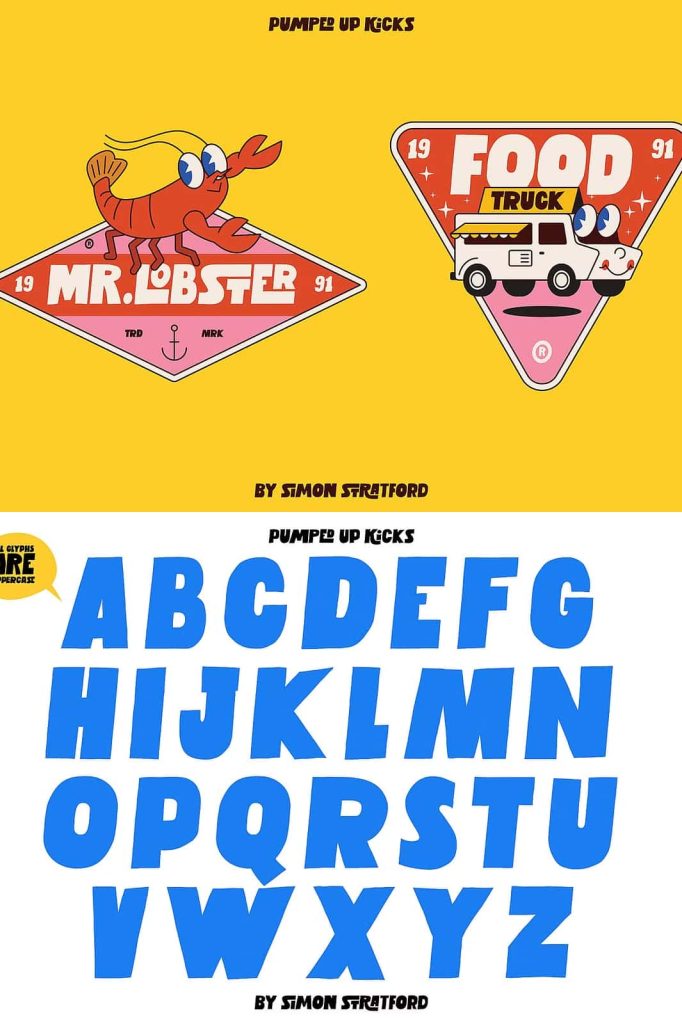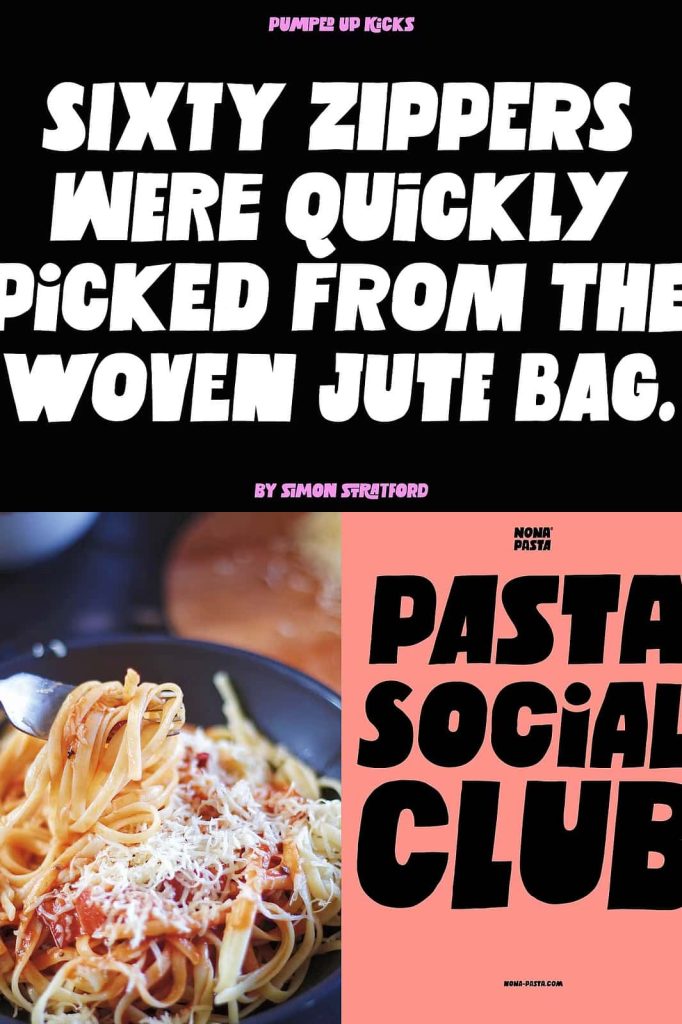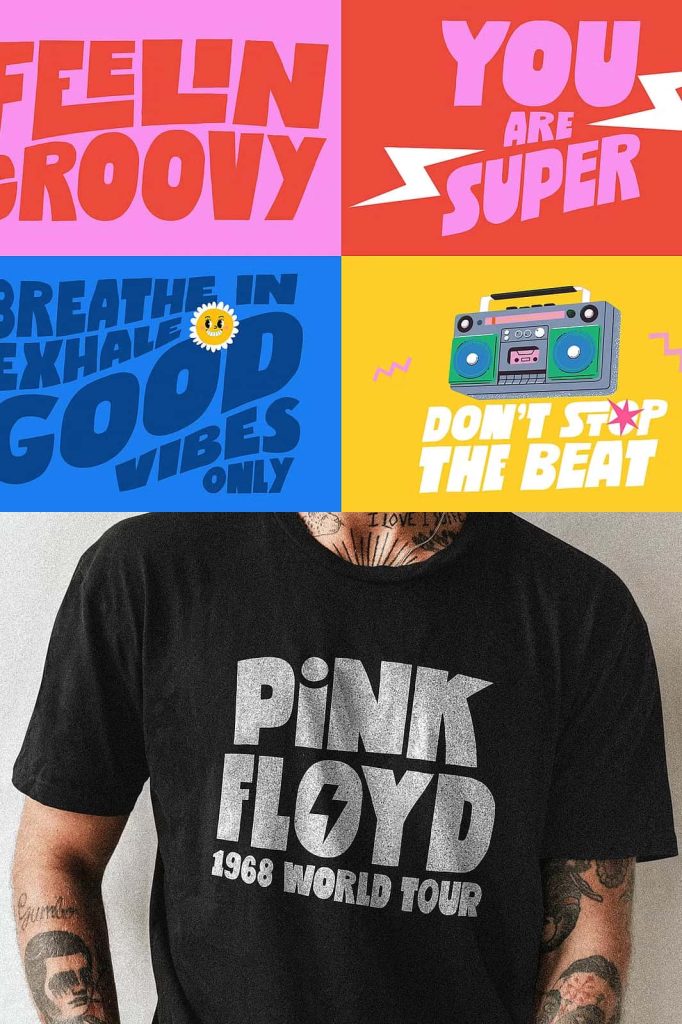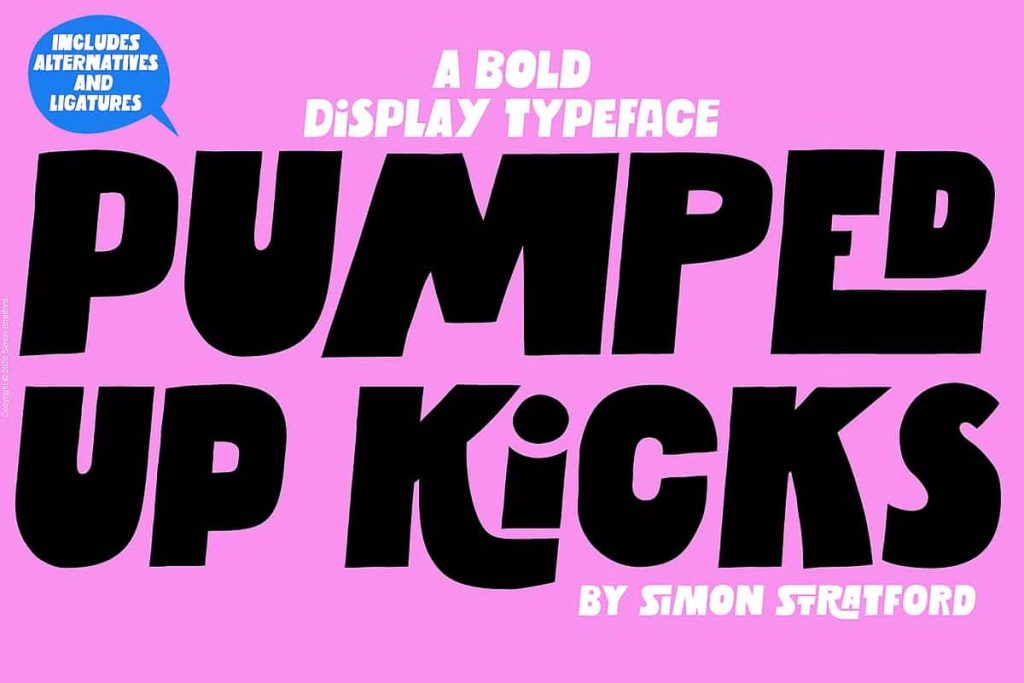
Pumped up kicks display font
Pumped Up Kicks Display Font: Bold Energy and Playful Expression
Pumped Up Kicks is a modern sans-serif display font designed to inject energy, fun, and confidence into any creative project. Built with bold forms and lively proportions, this typeface thrives in designs that demand immediate attention. It does not sit quietly in a layout; instead, it drives the visual narrative forward with a playful and expressive attitude.
This font embraces creativity without losing structure. Its clean sans-serif foundation ensures clarity, while its bold personality brings excitement and movement to the page. Pumped Up Kicks delivers a balance of visual fun and functional design, making it a powerful tool for designers who want typography to speak loudly and clearly.
A Modern Typeface Packed with Energy
Pumped Up Kicks captures the feeling of motion and enthusiasm through its letterforms. Each character feels dynamic and confident, creating a rhythm that keeps the viewer engaged. The font’s modern construction ensures that it feels current and relevant, while its playful edge prevents it from appearing generic.
This sense of energy makes Pumped Up Kicks especially effective for youth-oriented brands, creative campaigns, and bold visual storytelling. It communicates excitement at first glance and invites audiences to interact with the design.
Bold Letterforms with a Playful Twist
The bold weight of Pumped Up Kicks gives it a strong presence, allowing text to stand out instantly. The letterforms feel friendly and expressive, with subtle curves and proportions that add personality without compromising readability.
These playful characteristics make the font versatile across different creative directions. It can feel lighthearted and fun in colorful layouts or confident and assertive in high-contrast designs.
Designed to Grab Attention in Display Use
Pumped Up Kicks performs best in display settings where typography takes center stage. Its bold structure and lively character make it ideal for headlines, titles, and featured text. Whether used in print or digital media, the font commands attention and establishes hierarchy quickly.
Designers can rely on Pumped Up Kicks to carry a message visually, reducing the need for additional decorative elements. The font itself becomes a key part of the design language.
• Headlines and titles
• Branding and logo design
• Posters and promotional materials
• Social media graphics
• Packaging and creative campaigns
Creativity Meets Functional Design
While Pumped Up Kicks emphasizes fun and personality, it also maintains functional consistency. The clean sans-serif structure ensures that letters remain clear and legible, even at large sizes or when viewed from a distance. This combination of creativity and practicality makes the font easy to integrate into real-world design projects.
The font works well as a standalone statement typeface or as part of a broader typographic system. It pairs effectively with neutral sans-serif fonts or simple serif typefaces that can support its energetic role.
A Typeface That Encourages Playful Expression
Pumped Up Kicks invites designers to experiment. Its lively design encourages bold layouts, vibrant color choices, and expressive compositions. The font adapts well to different creative moods, from upbeat and youthful to confident and modern.
This flexibility allows designers to reuse the font across multiple projects while still achieving unique results each time.
Perfect for Brands That Want to Feel Alive
Pumped Up Kicks suits brands and creatives who want their visuals to feel active, approachable, and memorable. It communicates enthusiasm and positivity, helping brands connect with audiences on an emotional level. The font’s friendly nature makes it especially effective for entertainment, lifestyle, and creative industries.
By using Pumped Up Kicks, designers can establish a visual identity that feels energetic and authentic rather than static or corporate.
A Display Font That Delivers Fun and Impact
Pumped Up Kicks stands as a display font that celebrates bold design and playful expression. It turns text into a visual experience and encourages designers to push creative boundaries. With its modern sans-serif foundation and energetic personality, it offers both reliability and excitement.
For projects that need bold typography, strong presence, and a sense of fun, Pumped Up Kicks delivers a font that feels alive, expressive, and ready to make an impact.